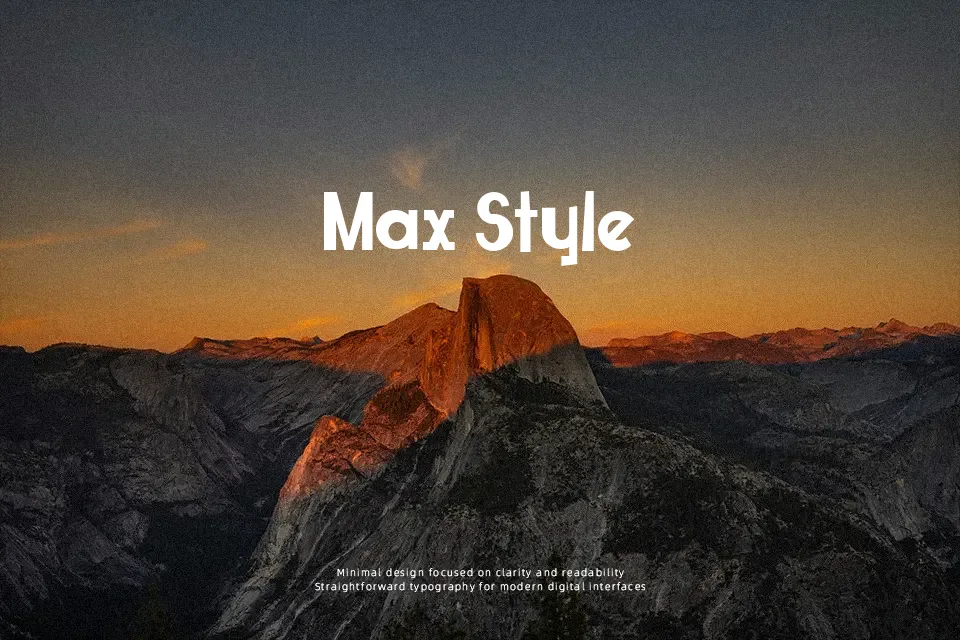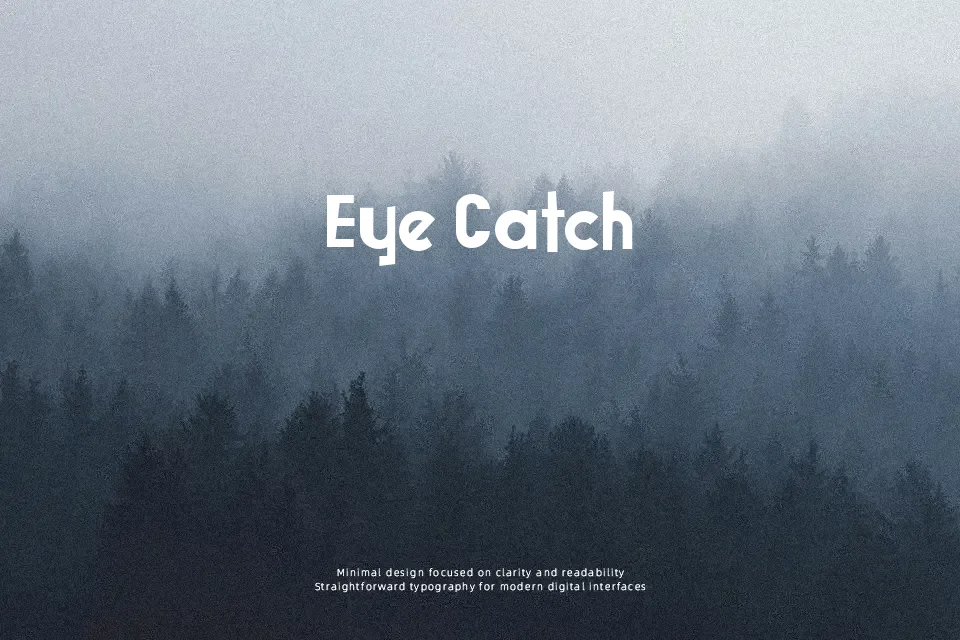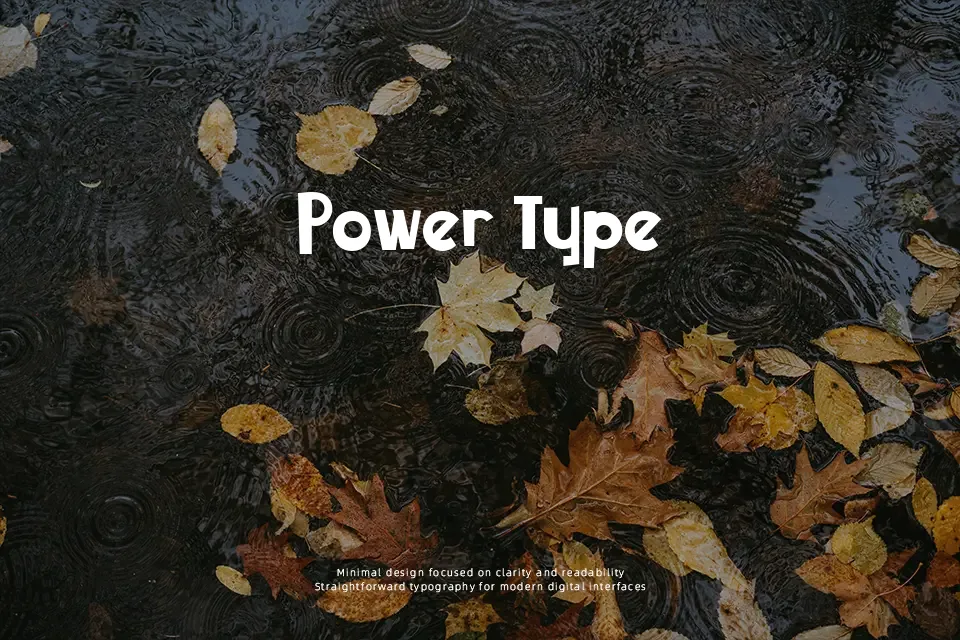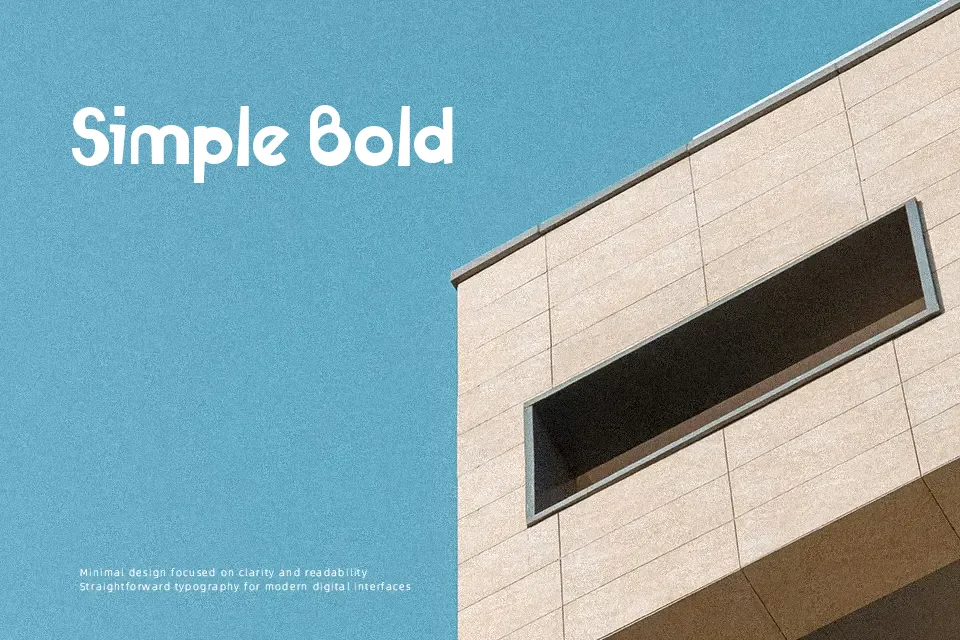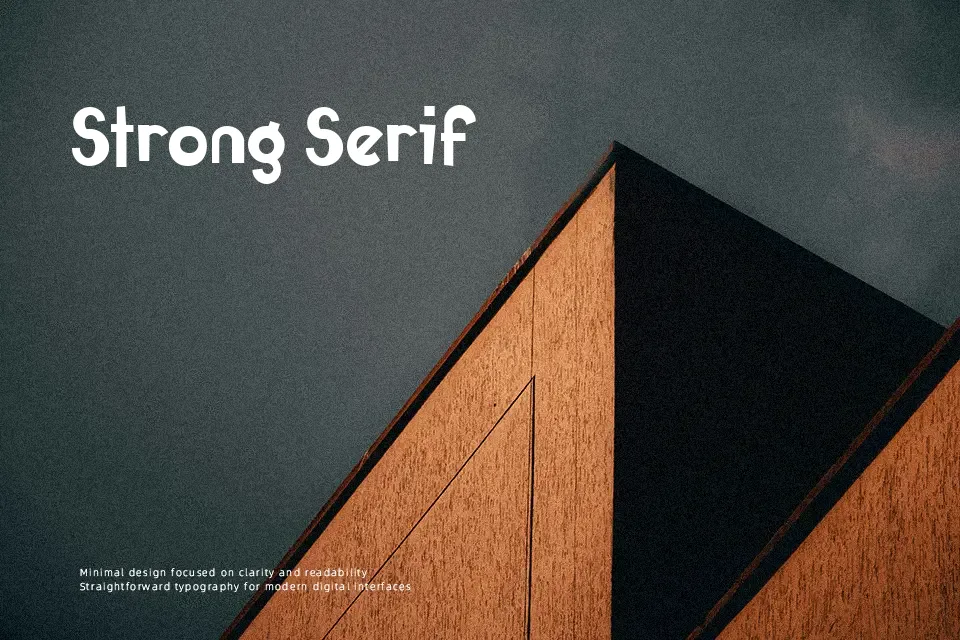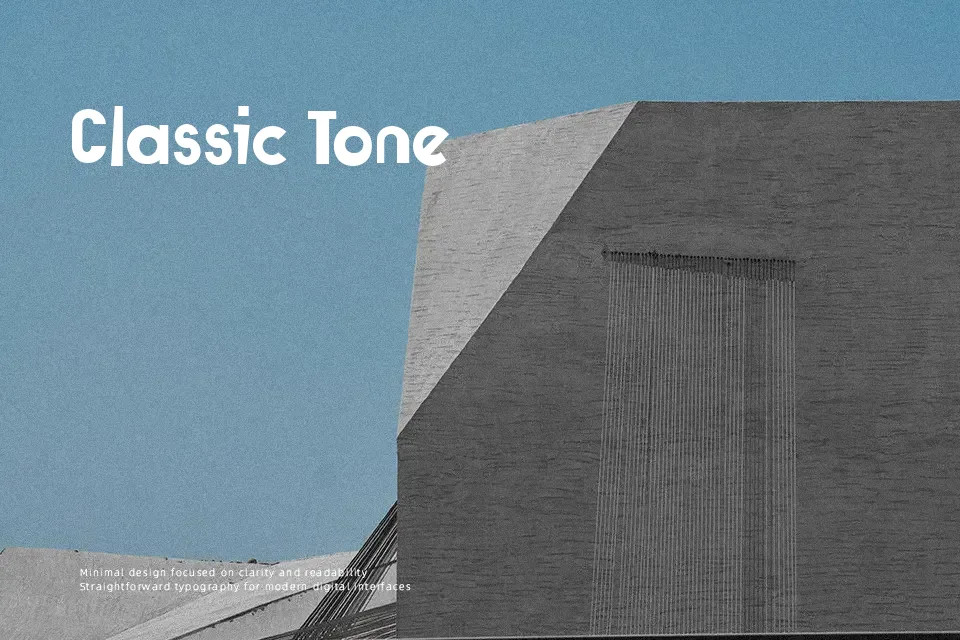
Superfruit Font
Designed by NimaType
Superfruit Font uses chunky, rounded forms and smooth, heavy strokes that give short words a lively cartoon presence. The broad proportions and soft curves create an informal rhythm, while the close visual weight of the characters keeps headings cohesive. It reads most clearly in large titles, where its distinctive shapes remain easy to separate. The typeface is practical for playful event graphics, kid-focused labels, and expressive social posts, but its decorative density makes it less comfortable for extended reading. Small captions and tightly packed text can lose clarity.
Best For: children’s party invitations,playful poster headlines,food packaging titles,social media graphics
Perfect for headline, invitation, and kids, with a bold and cartoon style.